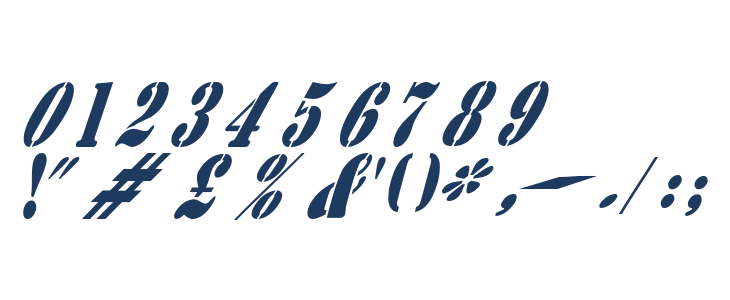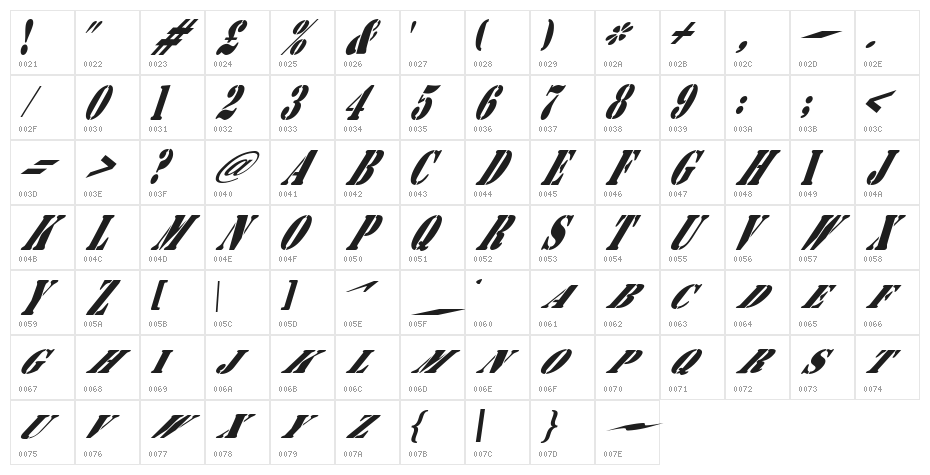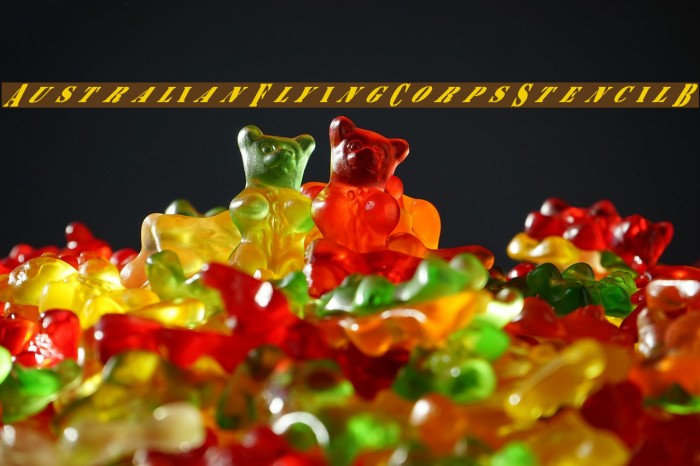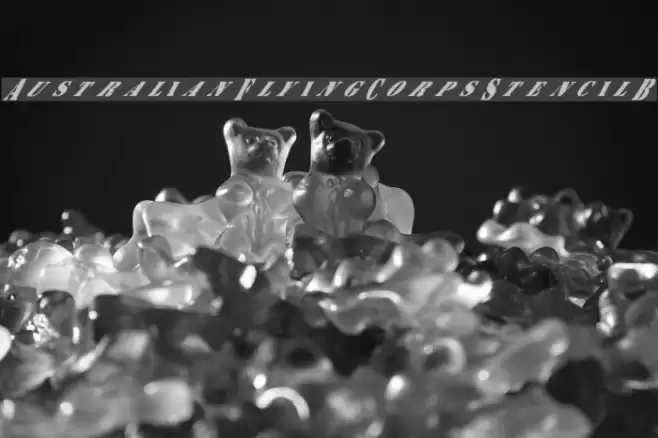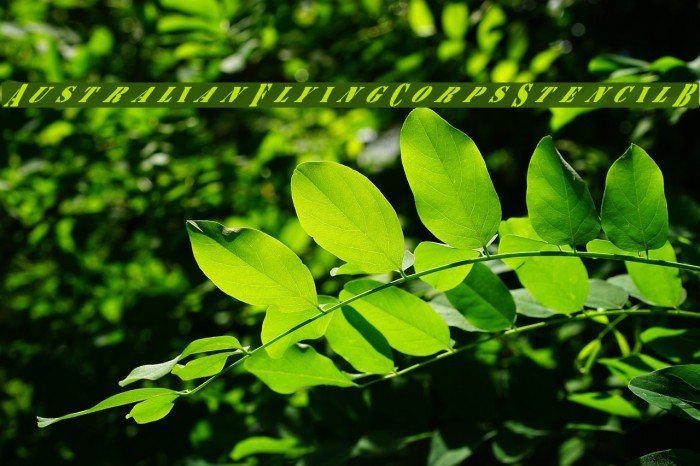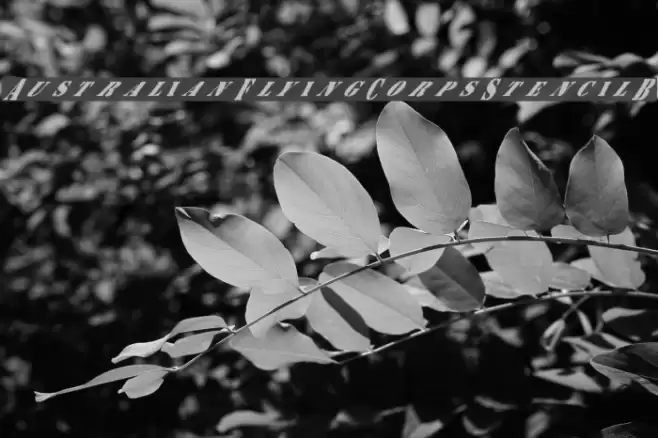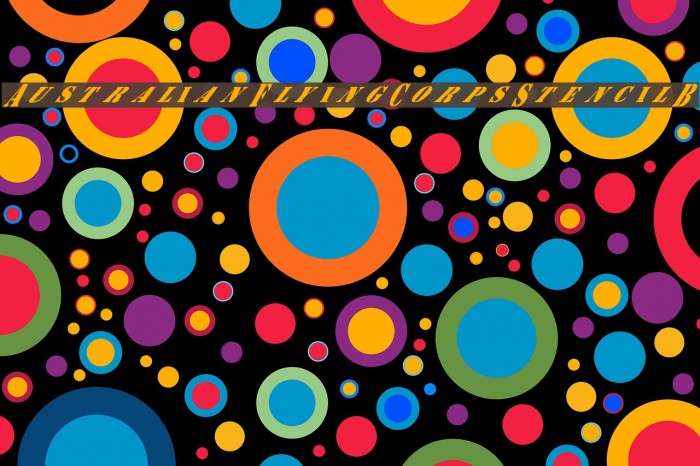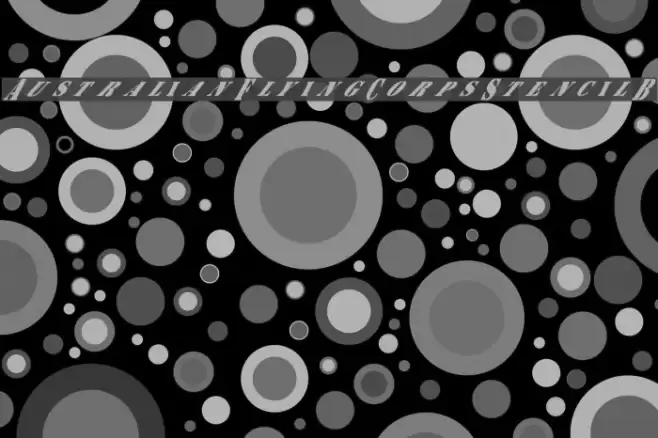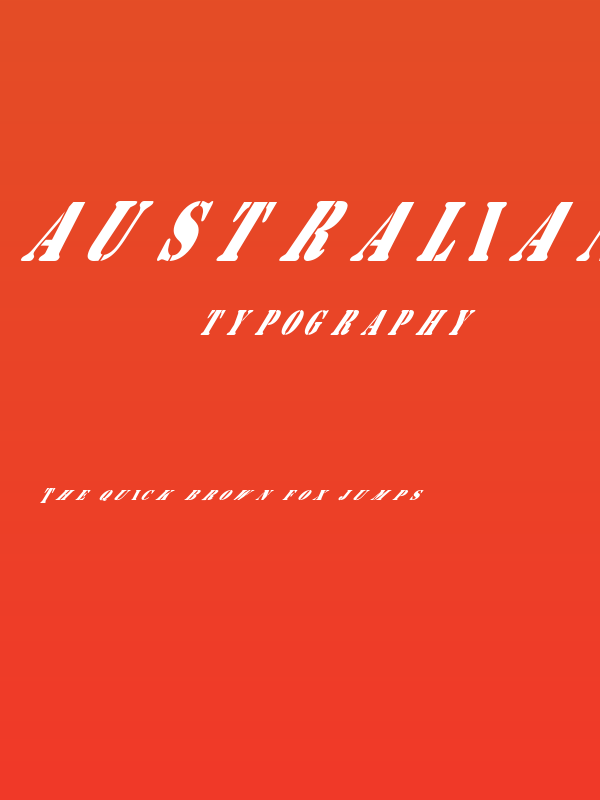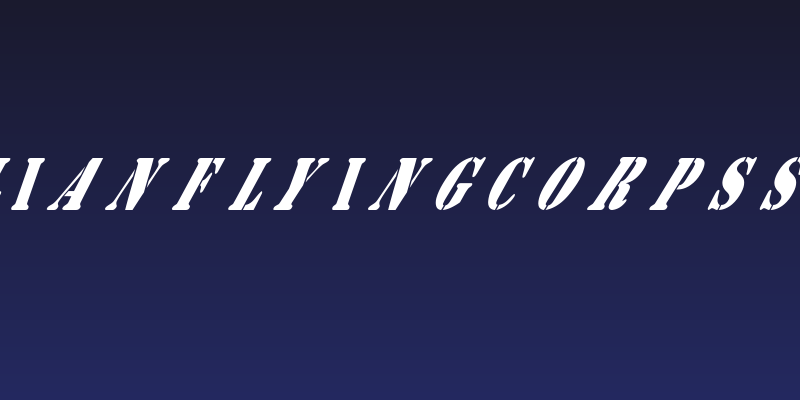
AustralianFlyingCorpsStencilB Font
AustralianFlyingCorpsStencilB Description
This font features a bold, stencil-like design with sharp, angular edges and a distinct slant, giving it a dynamic and authoritative appearance. The characters are well-defined with a high contrast between thick and thin strokes, typical of stencil fonts used for impactful visual communication. The uppercase letters are particularly striking, with a strong presence that commands attention. The numbers and special characters maintain the same bold style, ensuring consistency across all elements. This font is ideal for projects that require a military or industrial aesthetic, offering a sense of strength and precision.
| Use Case | Headlines, Logos, Signage |
| Proposed Projects | Ideal for military-themed designs, industrial branding, signage, and posters requiring a bold statement. |